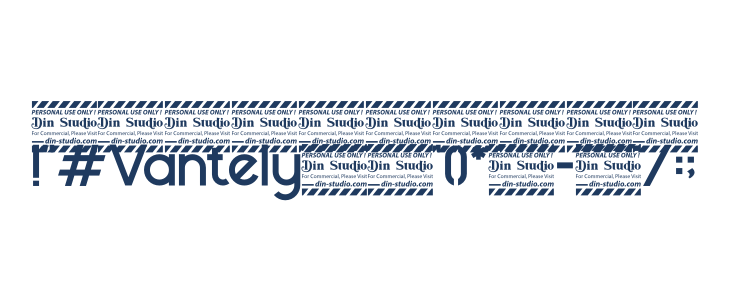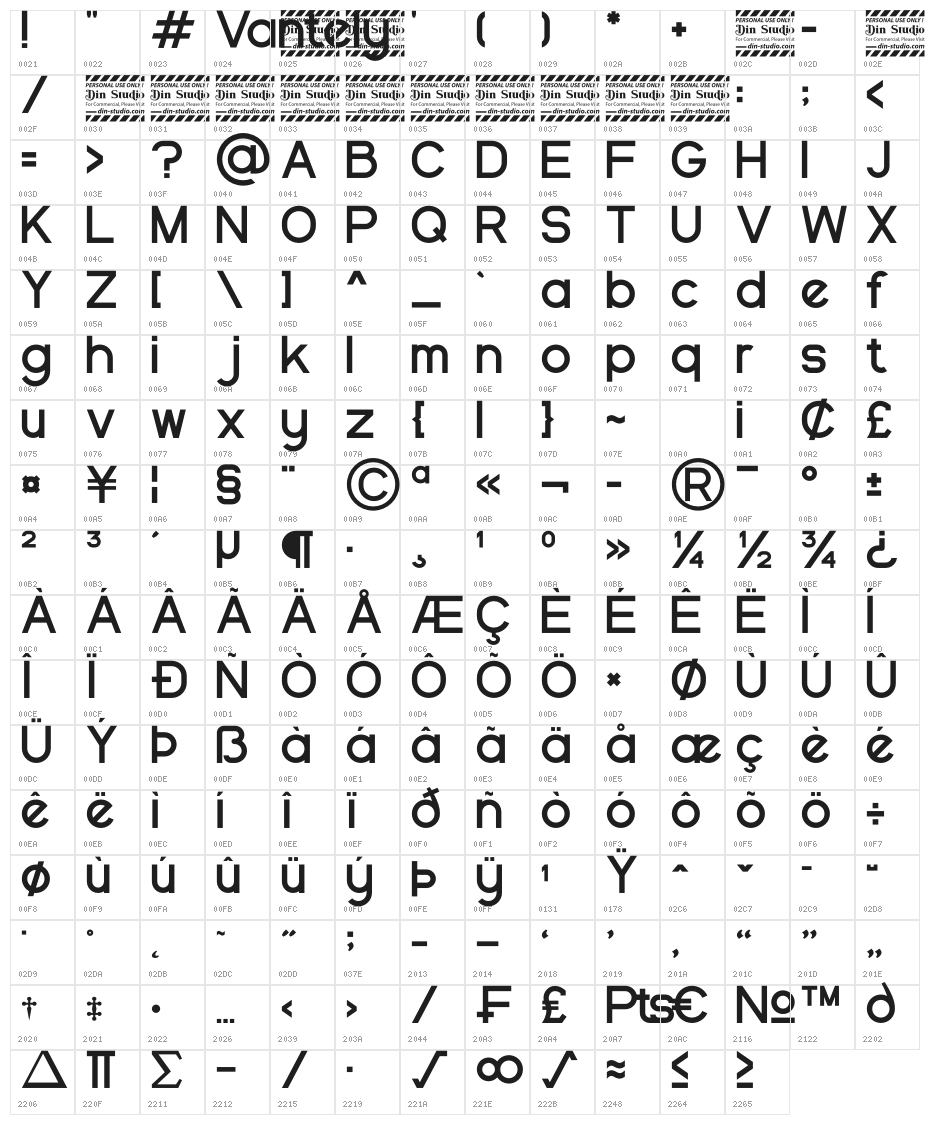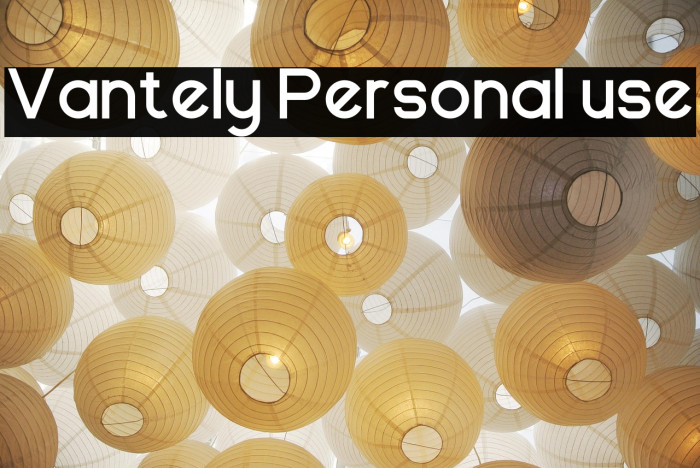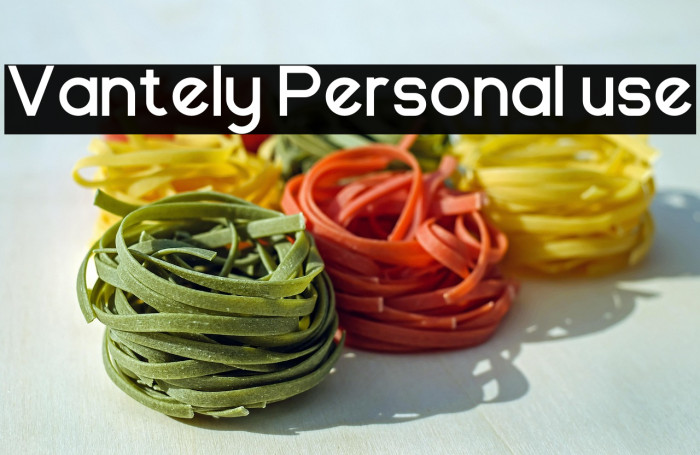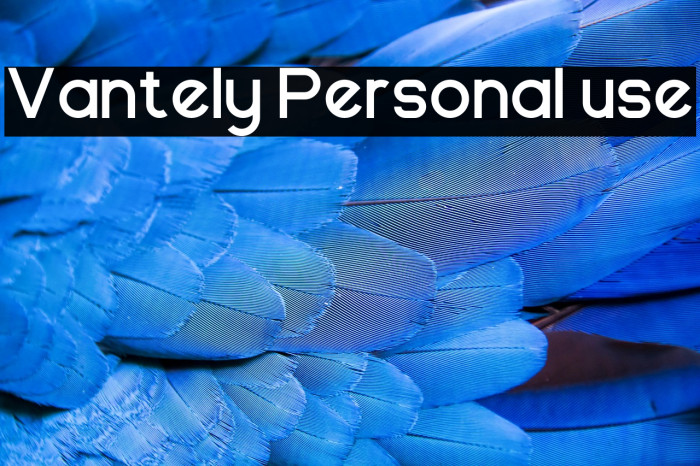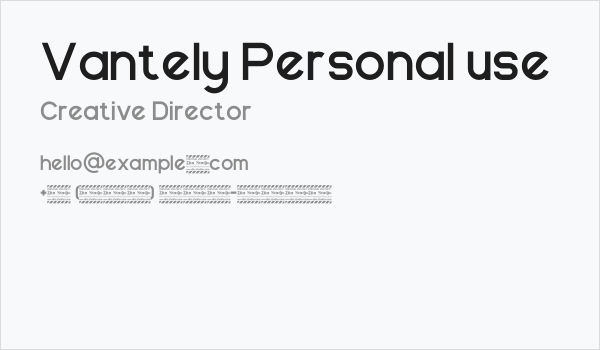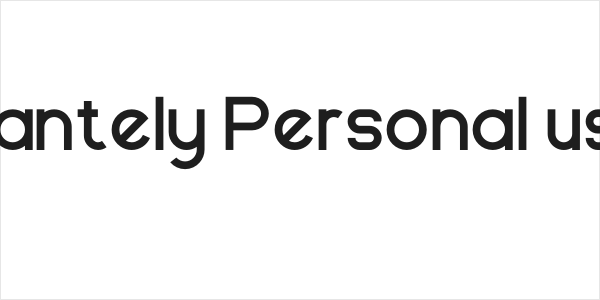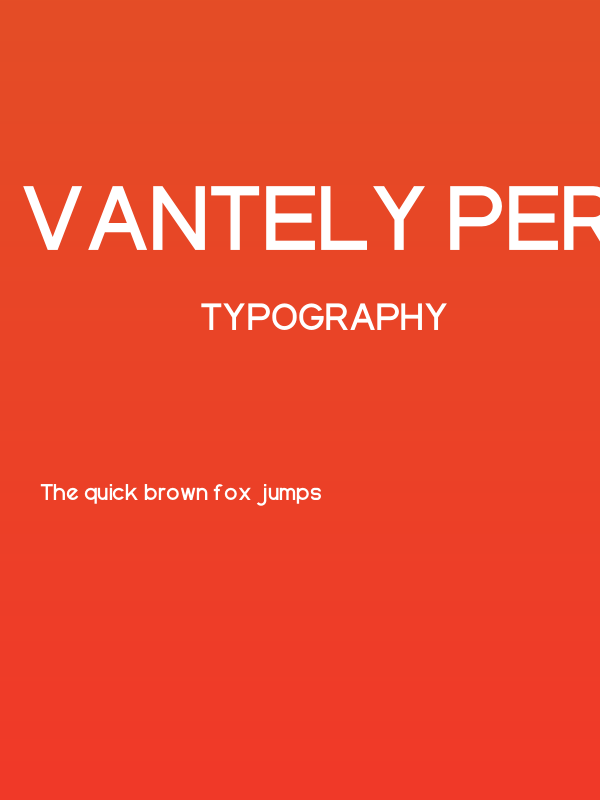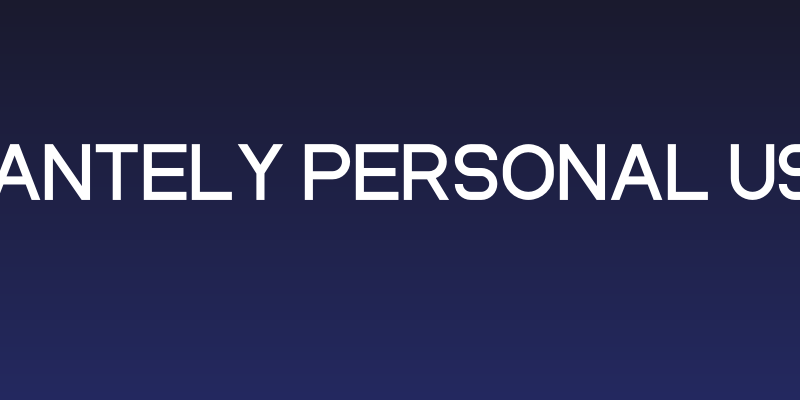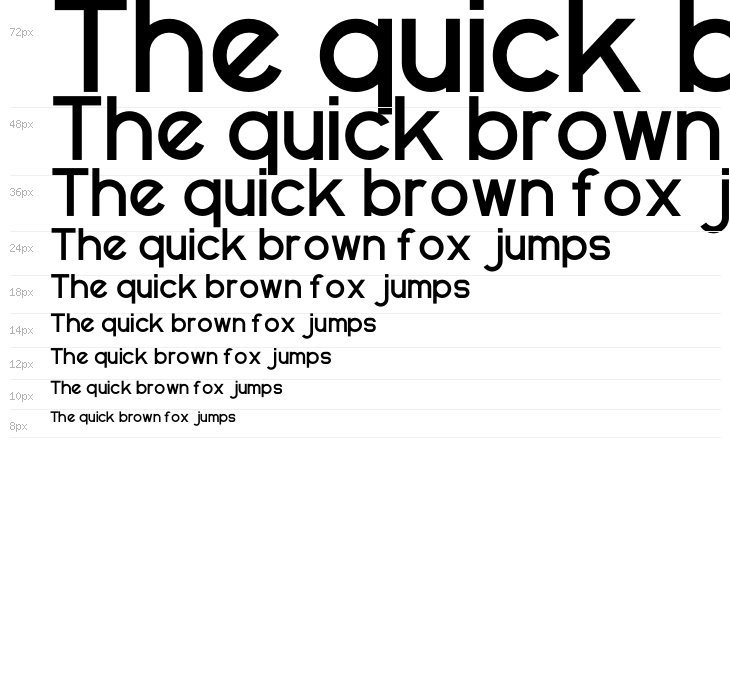
Vantely Personal use Font
Vantely Personal use Description
This font features a clean, modern sans-serif style with uniform stroke widths, creating a balanced and professional appearance. The characters are well-proportioned, offering a harmonious look that is both contemporary and versatile. The uppercase and lowercase letters are distinct yet cohesive, making it suitable for various design needs. The numerals and special characters maintain the same aesthetic, ensuring consistency across different uses. Its simplicity and clarity make it ideal for projects that require a straightforward and elegant typeface.
| Use Case | Headlines, Body text, Logos |
| Proposed Projects | Ideal for branding, advertising, web design, and editorial projects where clarity and modernity are essential. |